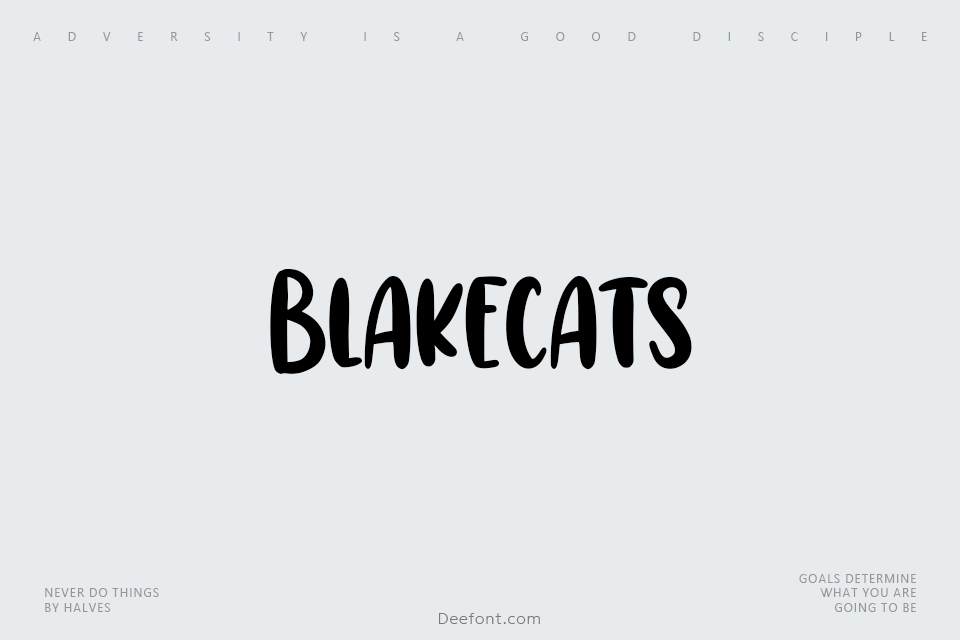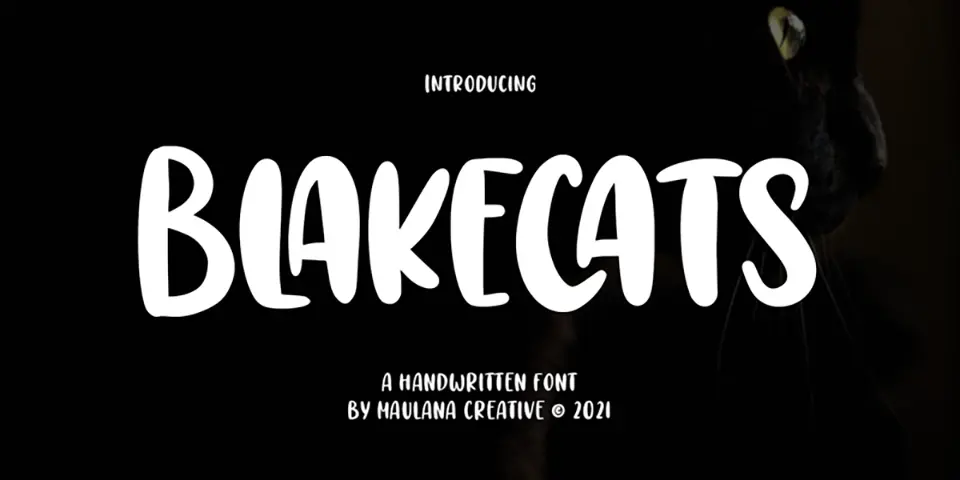
Blakecats Font
Blakecats is an expressive script typeface designed by Maulana Creative, featuring stylish playful lettering perfect for contemporary projects. This free handwriting font displays casual yet elegant characteristics, bringing an approachable look with a modern handwritten style. Ideal for advertising, social media, branding, packaging, and invitations, it combines informal familiarity with visual sophistication. The font contains 103 beautifully designed characters and supports multiple languages, making it versatile for creative professionals seeking a personal touch with engaging visual appeal.